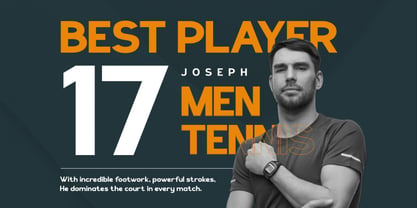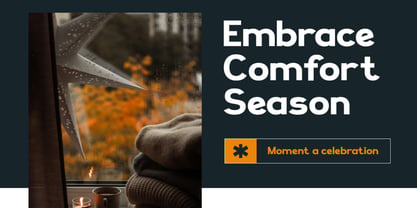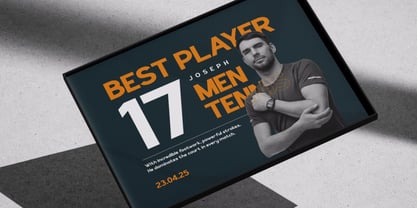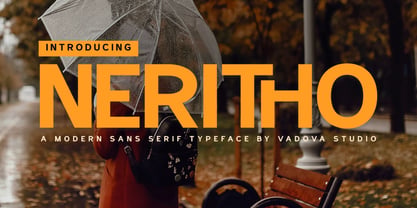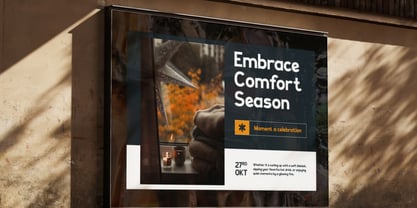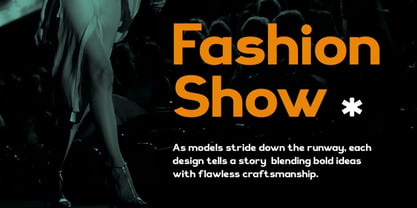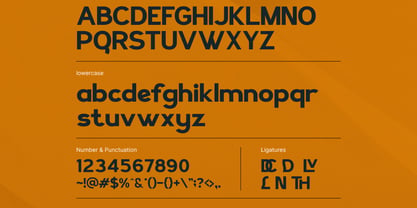
Neritho
Neritho is a powerful sans serif typeface built with clean lines and bold structure, ideal for modern branding and impactful visuals. With its minimalist form and contemporary styling, Neritho delivers clarity and authority across logos, presentations, websites, product packaging, and more. Designed for designers who seek strong typographic presence, this font thrives in both print and digital environments with ease.
Suitable for logo design, tech brand, bold headline, minimalist poster, product label, business card, corporate identity, startup branding, modern web design, UI/UX layout, mobile app, tech packaging, presentation title, urban ads, creative agency, portfolio, digital banner, fashion branding, clean print, geometric layout.